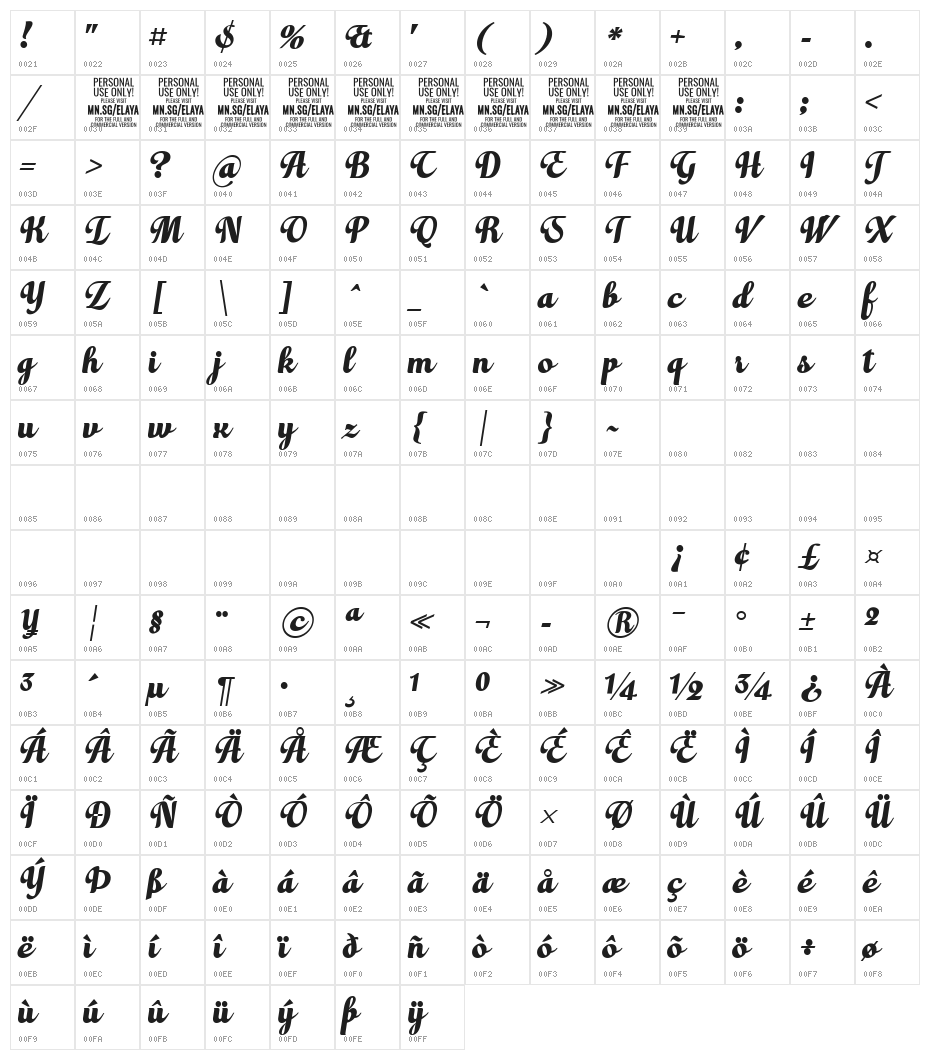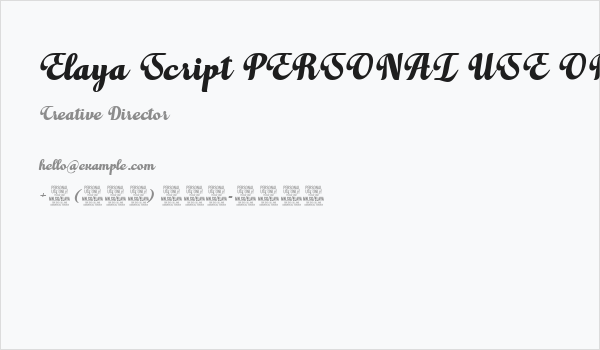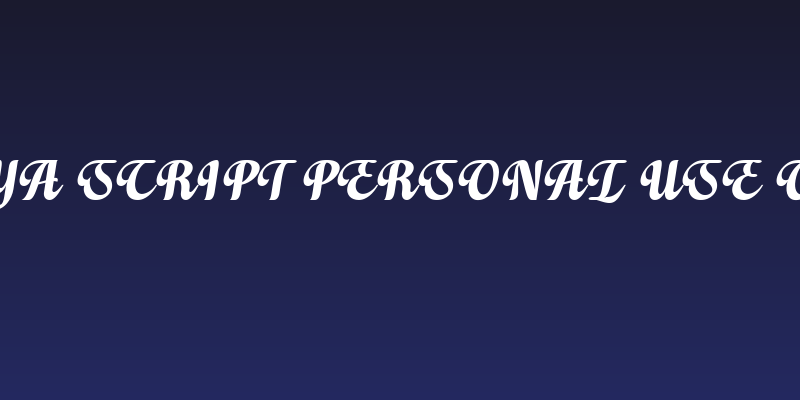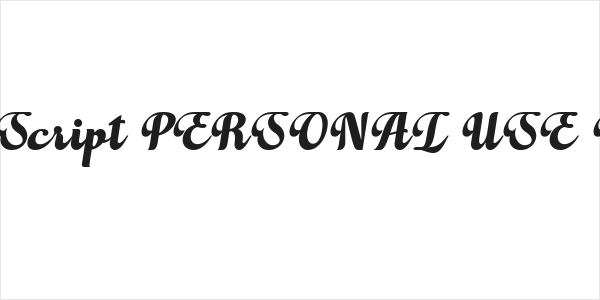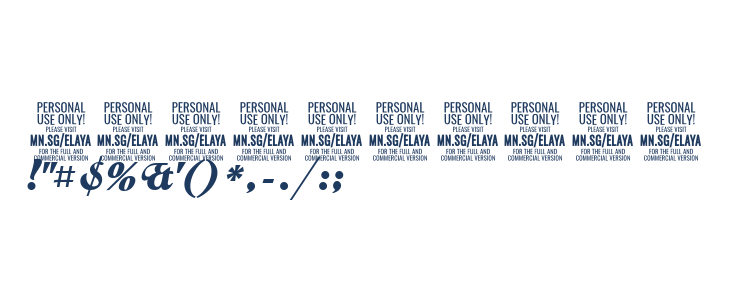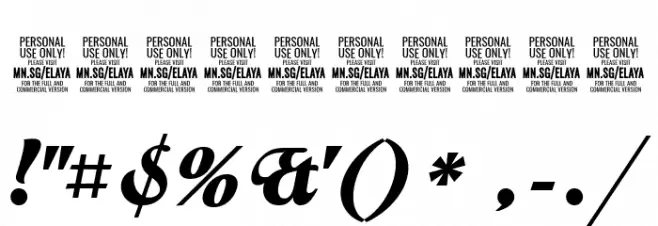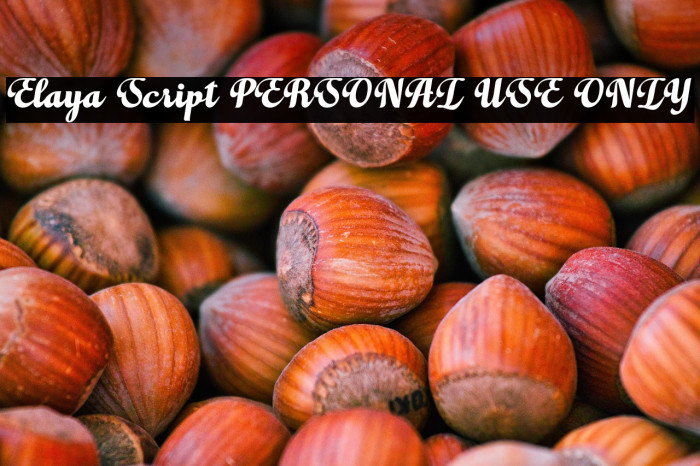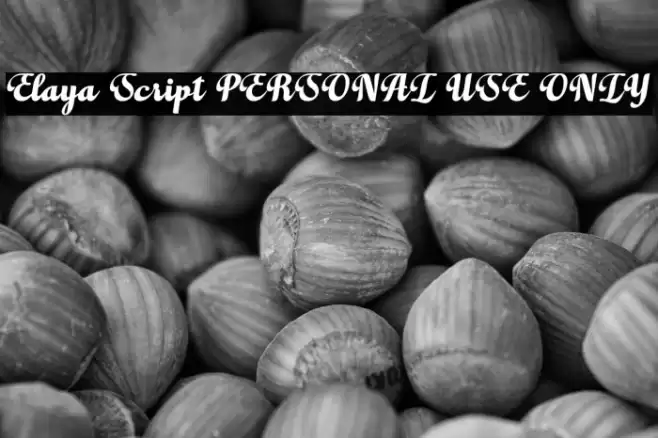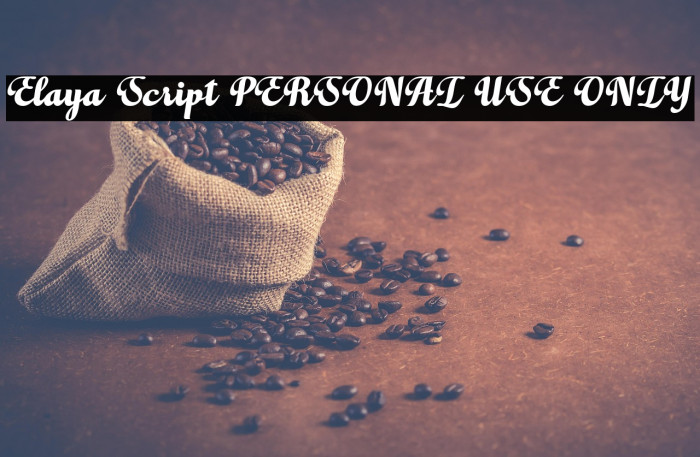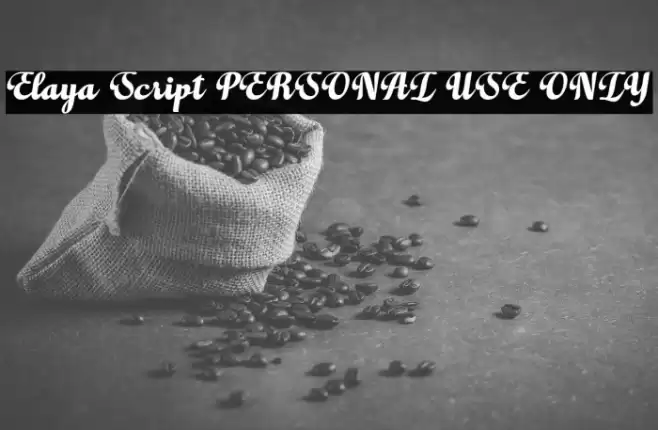
Elaya Script PERSONAL USE ONLY Font
Elaya Script PERSONAL USE ONLY Description
This font features a flowing, elegant script style with a strong emphasis on smooth, continuous strokes. The uppercase letters are bold and slightly slanted, giving a sense of movement and grace. The lowercase letters maintain a consistent style, with rounded edges and a harmonious flow that connects seamlessly. The numerals and special characters are designed to match the overall aesthetic, ensuring a cohesive look across all text. This font is ideal for projects that require a touch of sophistication and elegance.
| Overall Style | Elegant, Decorative |
| Use Case | Logos, Invitations, Decorative Text |
| Proposed Projects | Ideal for wedding invitations, elegant branding, greeting cards, and decorative signage. |